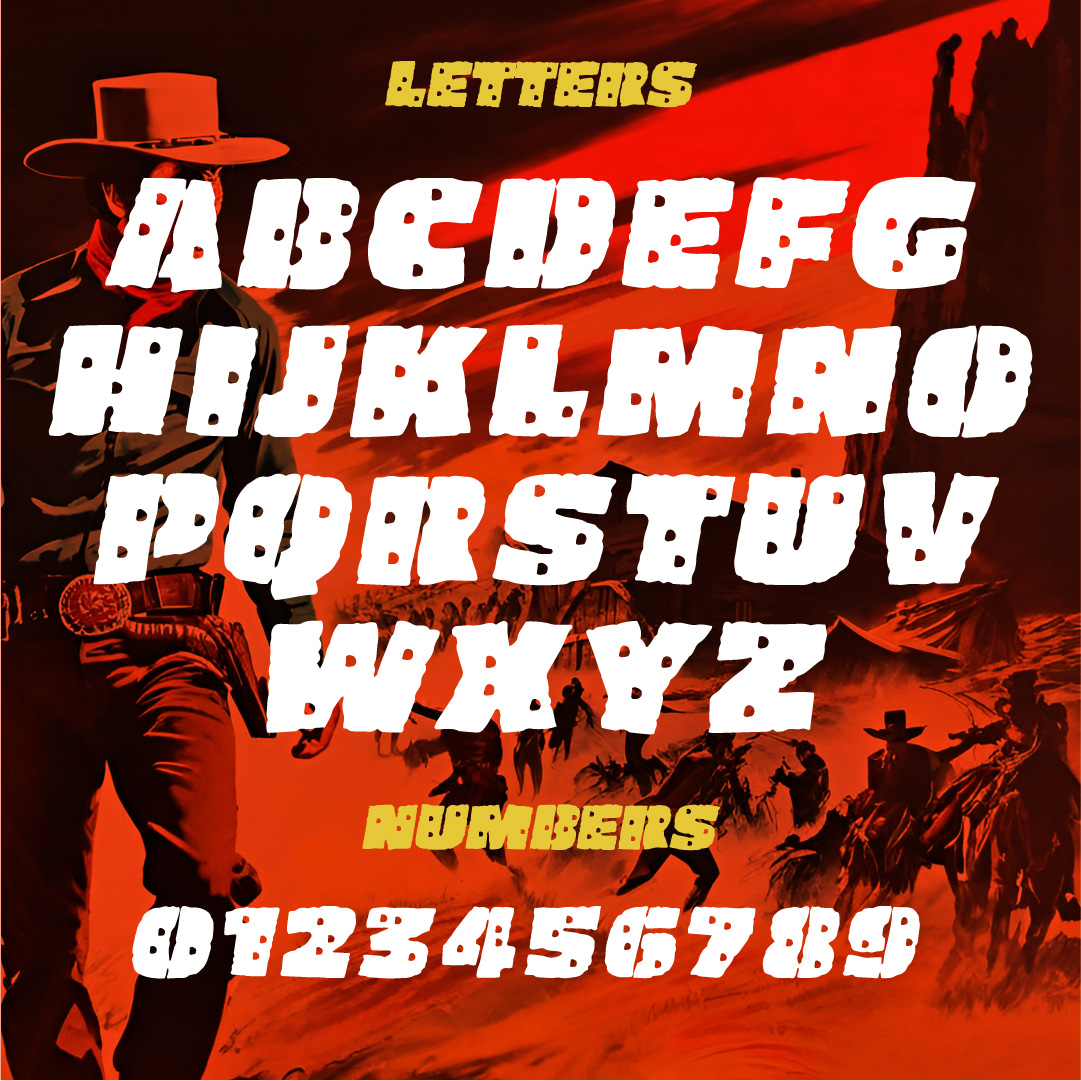
Dead Shot
A bullet hole filled font that evokes an authentic wild west era grit.
Step into the wild, wild west with Dead Shot, the typeface that oozes grit and authenticity. With each stroke and curve, this spooky font takes you on a journey straight into a dusty town filled with secrets and danger. It’s like your very own time machine back to an era of gunslingers and desperados.
Dead Shot is not your ordinary typeface; it’s packed full of character that will make every word jump off the page like bullet holes in a saloon door. Its rough edges add an air of mystery while its aged appearance gives it an authentic vintage feel. Whether you’re working on a poster for a haunted ghost town or designing a menu for your favorite cowboy-themed restaurant, Dead Shot will instantly transport your audience to the eerie depths of the old west.
But don’t let its haunting aesthetic fool you – Dead Shot is also highly versatile and practical. With bold uppercase letters and legible lowercase characters, this typeface ensures readability without sacrificing style. It can effortlessly convey both menace-filled messages or whimsical western charm, depending on how you wield it. So saddle up and unleash Dead Shot‘s macabre magic upon your designs to give them that spine-chilling edge they’ve been missing!